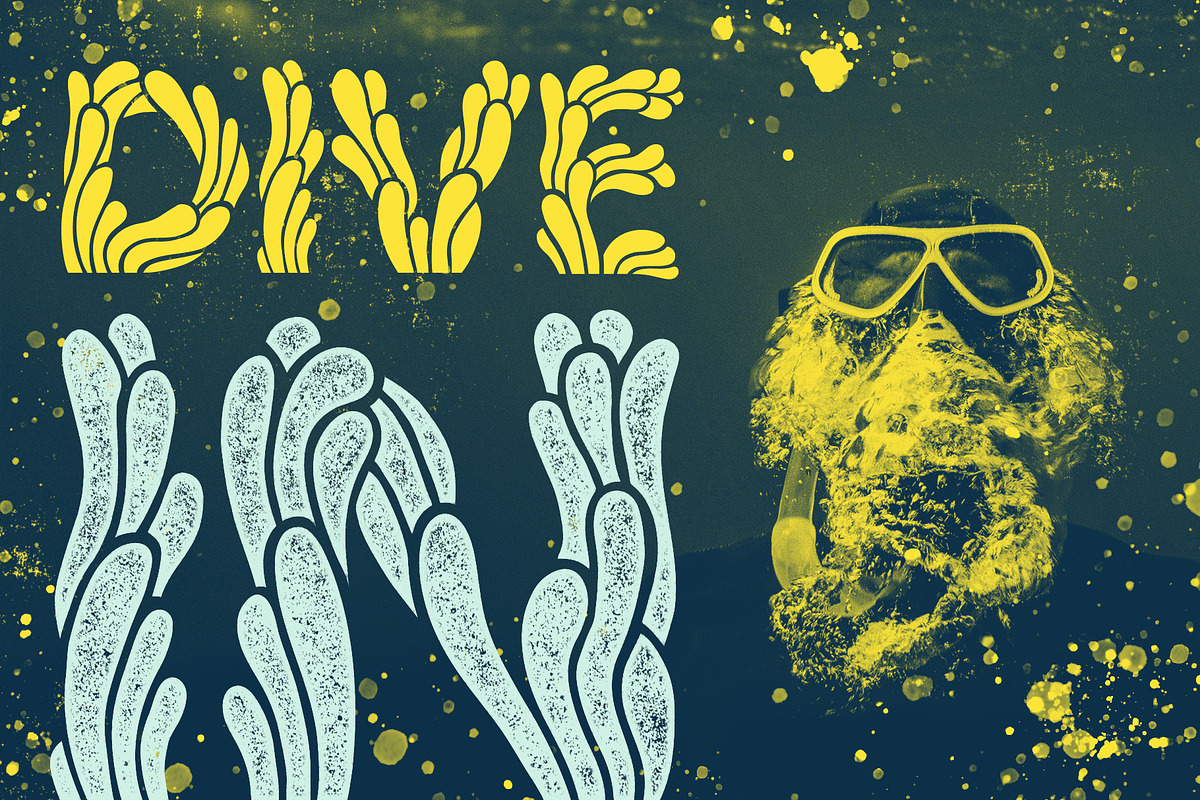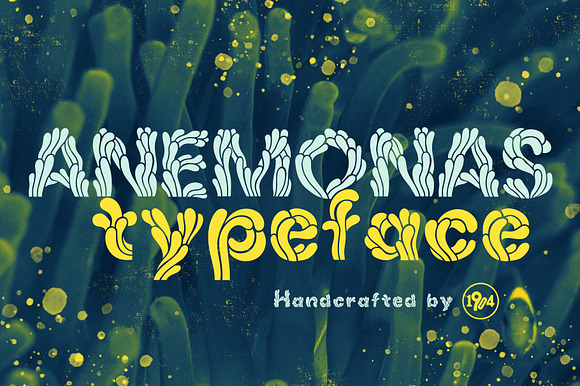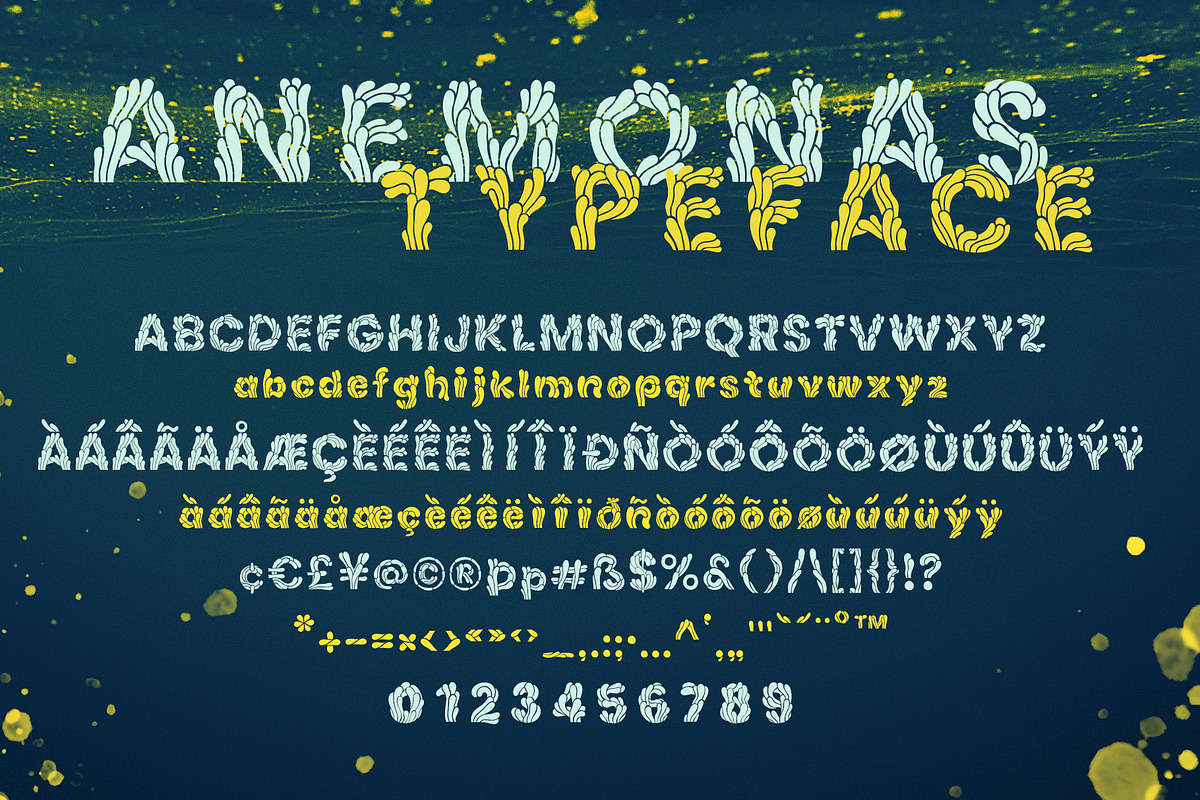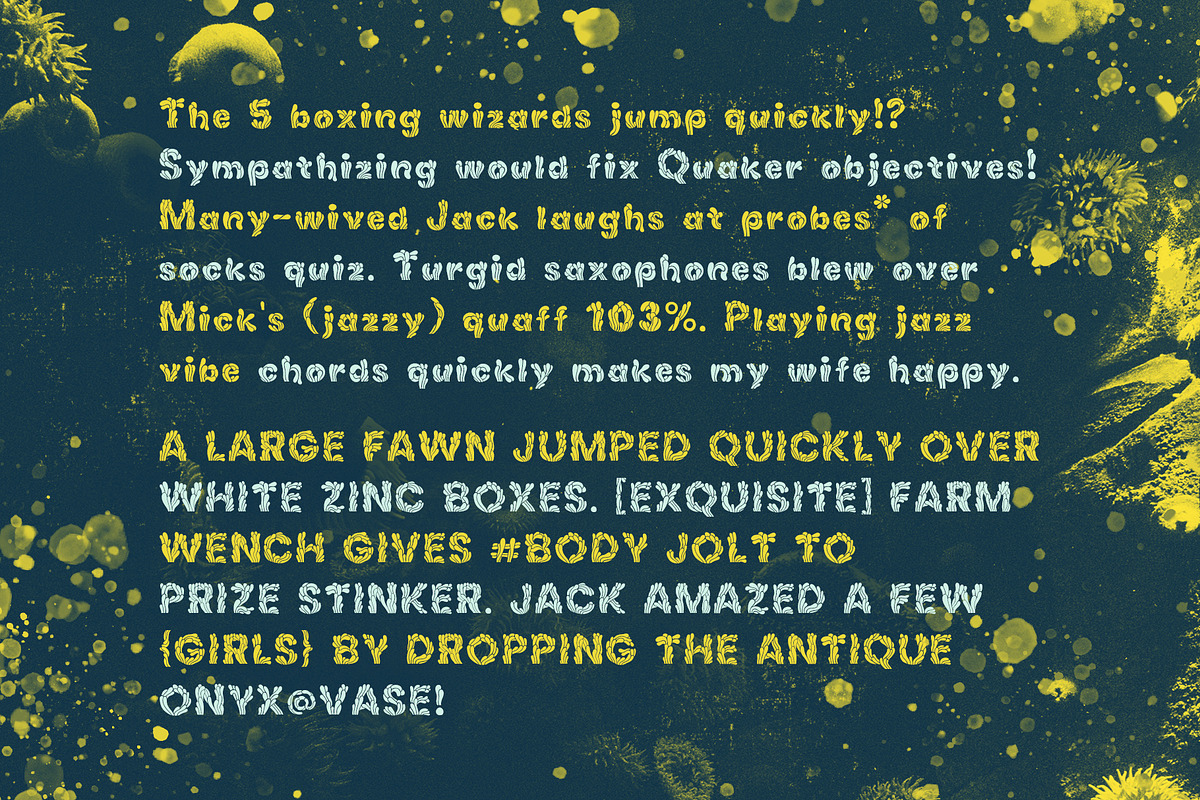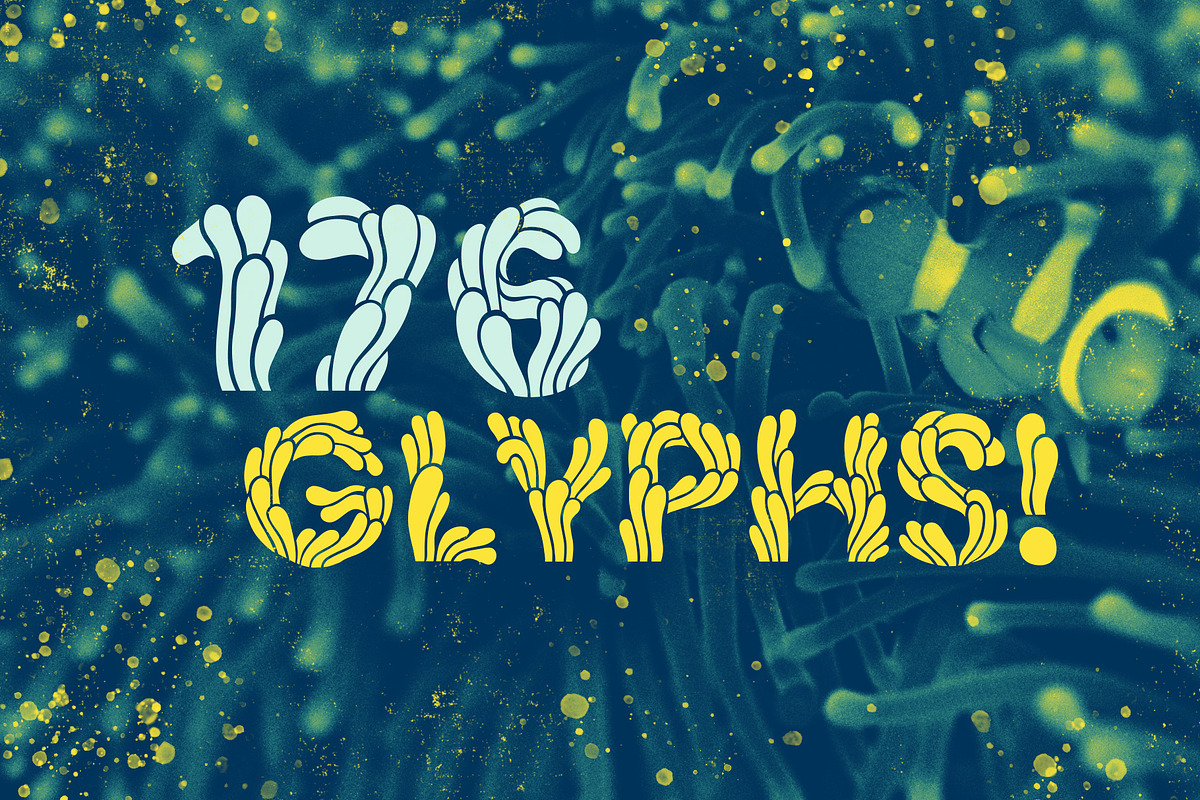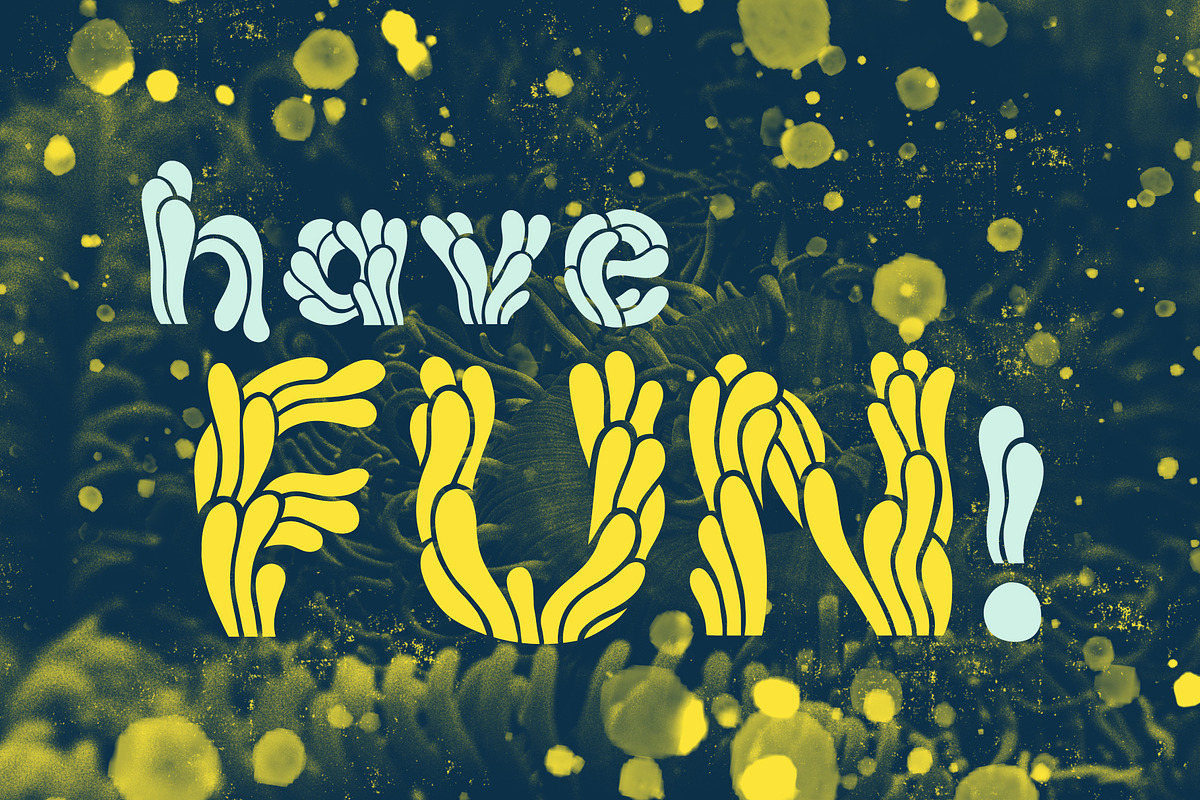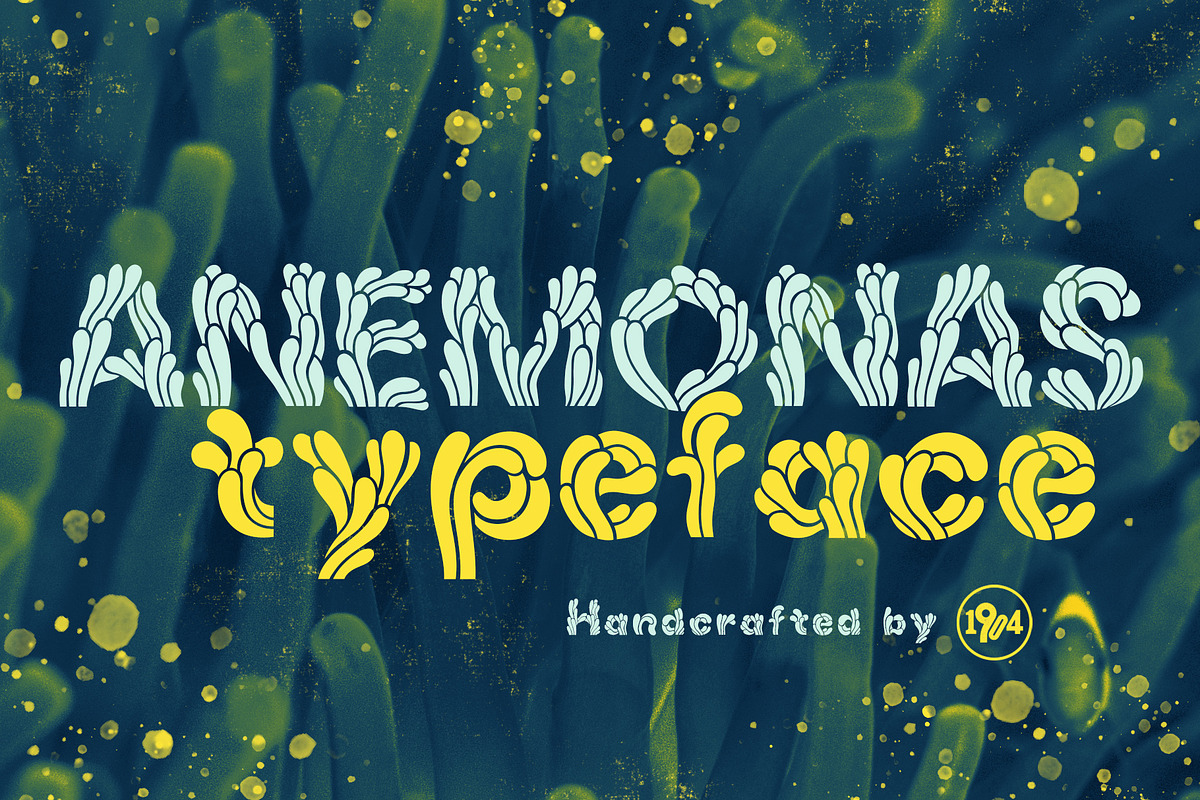
Anemonas Typeface
Anemonas is an OTF display font that comes with uppercase, lowercase, numerals, and punctuations (176 glyphs). Perfect to be used on posters, children`s books, illustrations, etc.
Anemonas Typeface by 1904 Studio fits naturally into Branding, posters, packaging, typography.